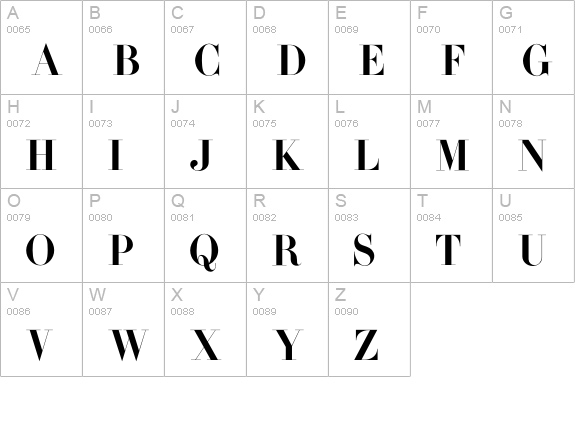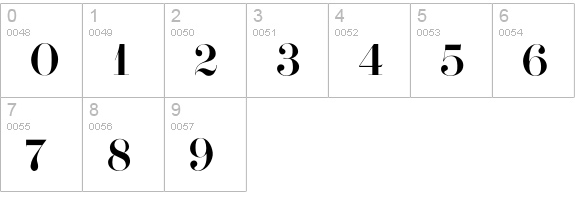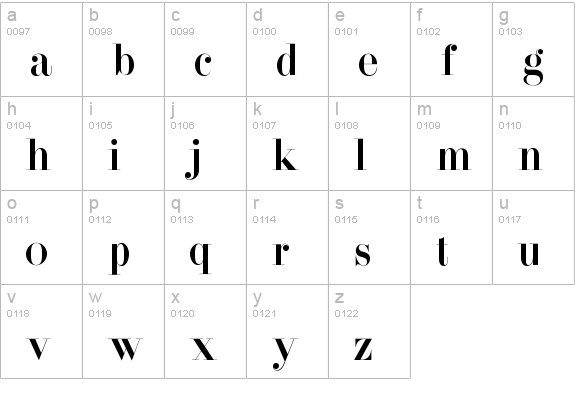
DidiFont Font Details
DidiFont is a unique and stylish font that exudes creativity and modernity. With its sleek lines and elegant curves, DidiFont adds a touch of sophistication to any project. This versatile font is perfect for a wide range of design applications, from branding to marketing materials to social media graphics. The best part? DidiFont is completely free to download at FontsMarket.com! Whether you're a seasoned designer looking to refresh your font collection or a beginner searching for the perfect typeface for your latest project, DidiFont is the ideal choice. Don't miss out on the opportunity to elevate your designs with DidiFont's eye-catching style and effortless charm. Download DidiFont now and let your creativity shine!